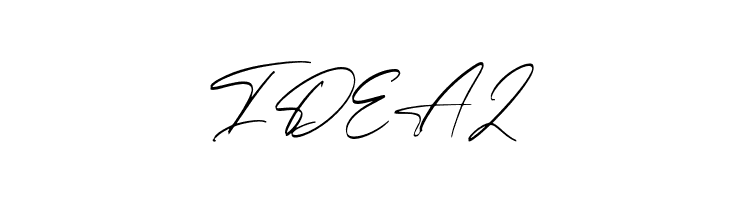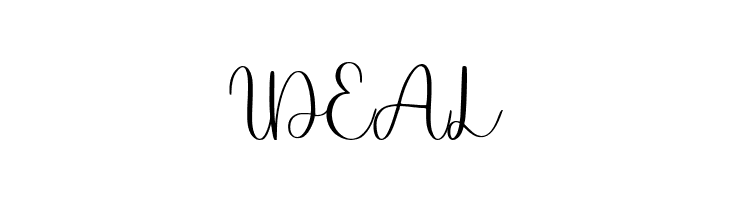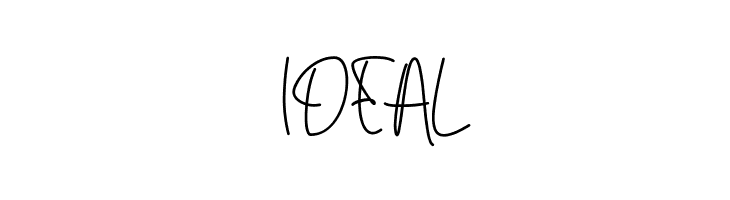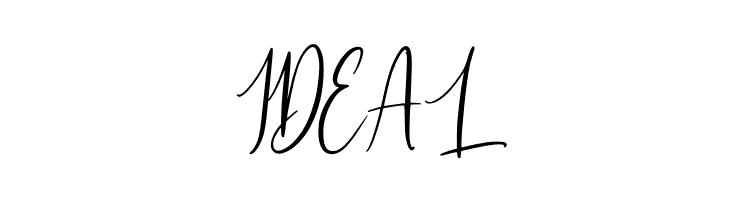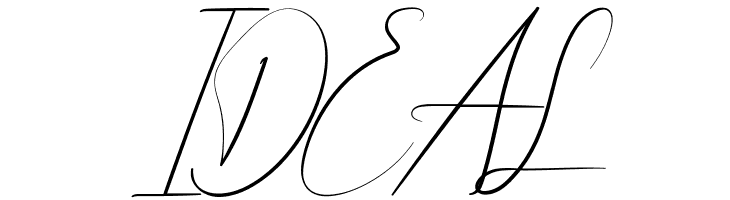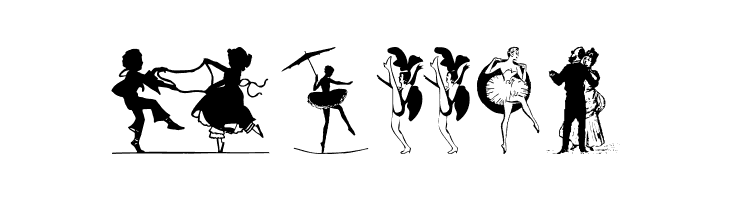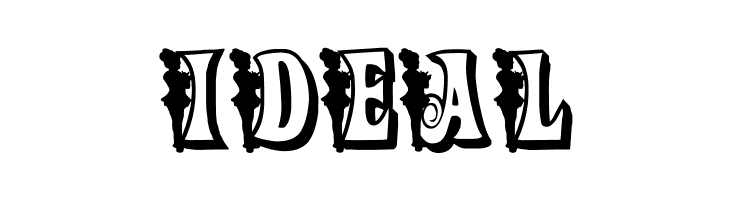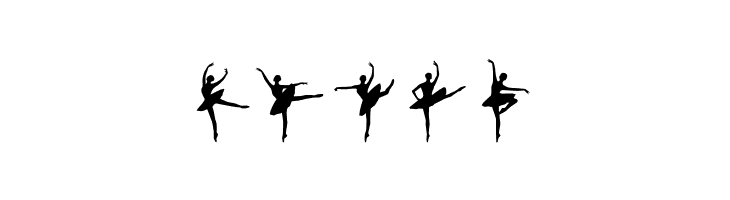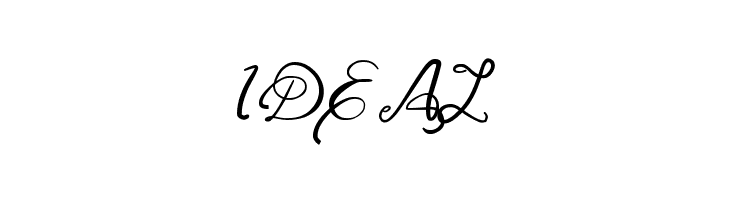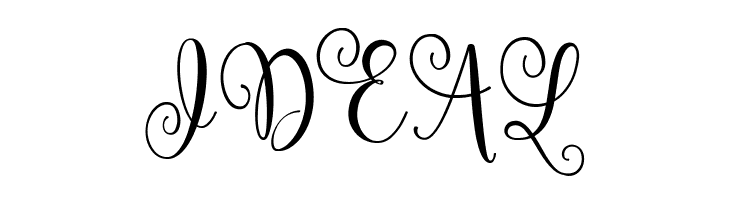
Ballerina Script Font
A graceful script font with elegant swirls and loops, perfect for sophisticated designs.
Ballerine Script Font
A graceful script font with flowing, cursive letters and elegant loops.
Little Ballerina JL Font
A decorative font with ballerina silhouettes integrated into bold, artistic letters.
BallerinasNPartners Font
Illustrative, dance-themed decorative font with vintage flair.
Vtks Ballerina Font
An elegant and sophisticated cursive script font with flowing curves and artistic flourishes.
BJF Ballerina Font
A decorative font with characters embedded in ballerina illustrations.
Ballerina Font
An elegant, high-contrast script font with a flowing, cursive style.
Ballerina Font
An elegant, cursive handwritten font with fluid, interconnected strokes.
Ballerinas Demo Font
A graceful, high-contrast handwritten script with long, sweeping lines.
Twirly Ballerina Font
A whimsical and elegant script font with flowing, interconnected letters.
Ballerin Font
A playful, handwritten font with flowing, cursive-like strokes.